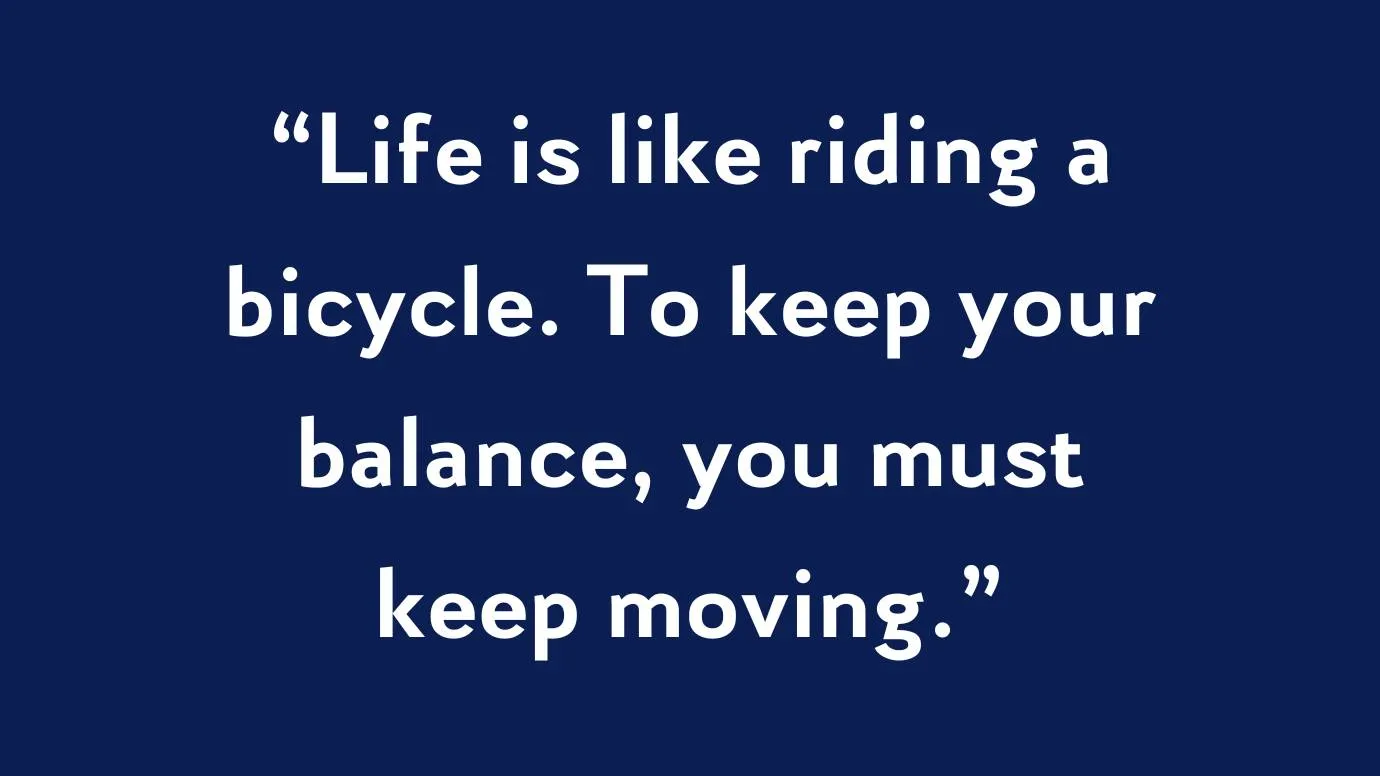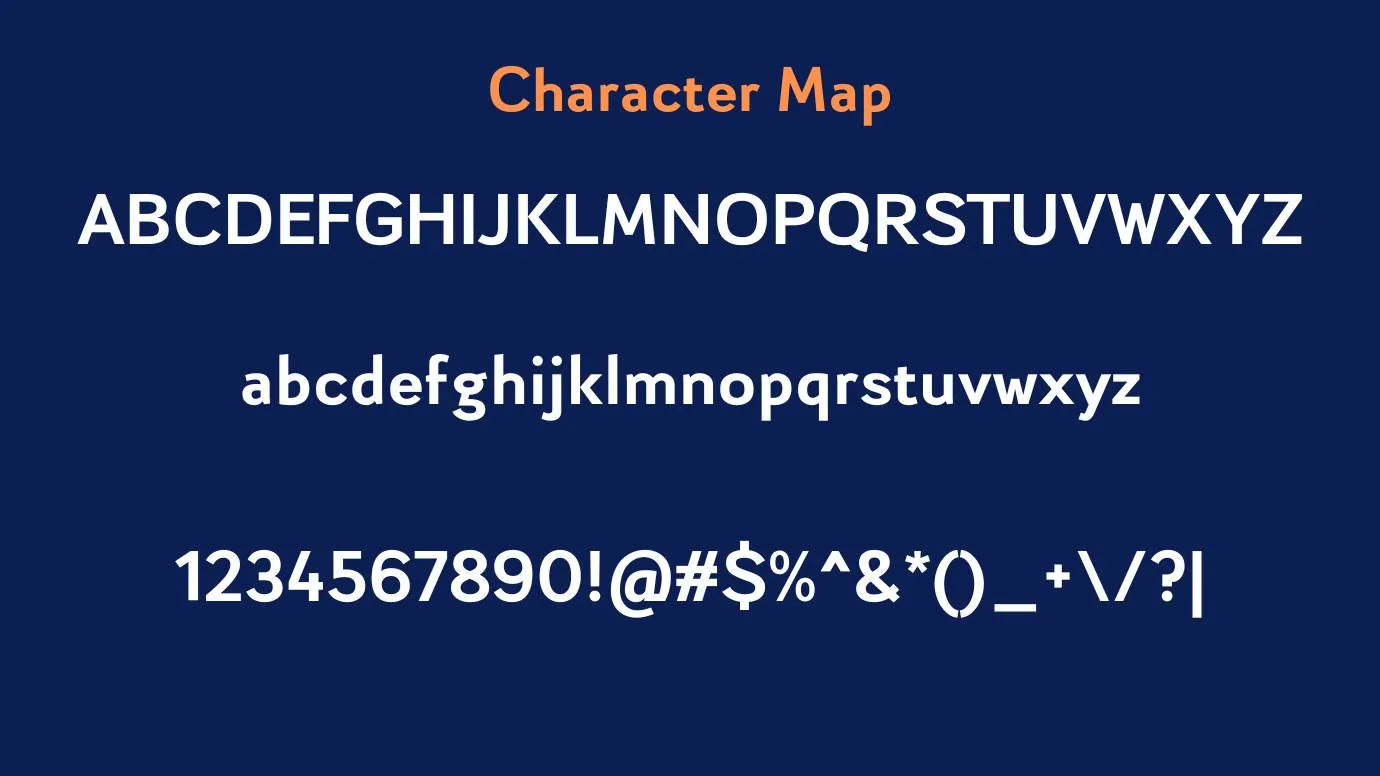
Dusan Jelesijevic beautifully designed Epitet Font that belongs to a sans-serif family. There is no doubt that this font is very popular among designers and people use it for their tasks due to its soft and unique look.
The use of this font gives almost every design a substantial look, so it would be an ideal choice for big-text projects. It has been used by many professionals to design websites in the past.
When you create your next website, you can incorporate the actual font or any of its weights and versions, which will add a stylish and appealing touch to the design.
A large number of businesses are using this typeface in their designs. Due to its excellent display appearance, this font type has been used by several designers for their works. As a result, you may utilize typeface in your upcoming project to continue the trend.
With this style, it is possible to create movie posters along with their titling. You can make vlogs more attractive while using this style. It’s best suited to clothing, t-shirt, blouse, and pants designs.
In addition to logo designs and murals, this typeface is ideal for homeware designs, names, and social media titles. As a designer, you can use this font to design newspaper and magazine covers, invoices, and book covers. This font has unique glyphs that get a new attraction after making paired with braxton font.
Logos, brochure covers, wedding cards, and invitations can all be designed using this font. In addition to using this typeface for graphics and game development, you can also use it to make logos, posters, and movie titles.
Like every other Sans serif typeface, it has an extended usage list that has increased the font’s worth and appreciation. As a designer, you also have used this typeface or its style and versions in one way or another.
Let’s enlist those platforms or domains where this font made an appearance in the past and gathered immense praise. Among graphic designers, this font remained an ideal choice; even today it is the first choice for many designers.
You can also design your website, designs, Banners, Books, Designs, Logos, Headings, etc. It provides old typeface feelings, so you can use the font if you want to give a touch of old vibes to your designs and website. Go ahead with the font and make your design extraordinary.
What’s the Closest Text style to Epitet Font?
The Aspergit textual style is exceptionally close to the Epitet font.